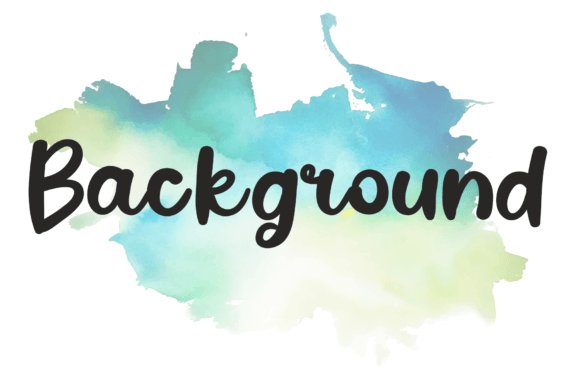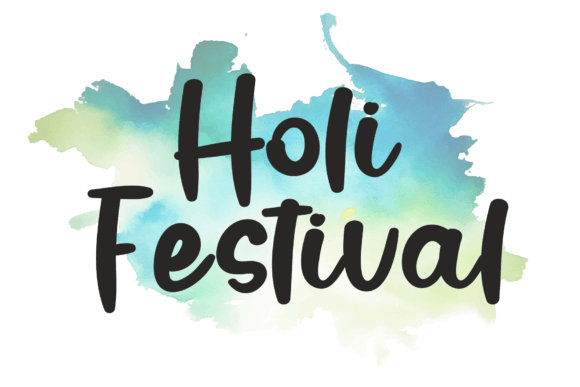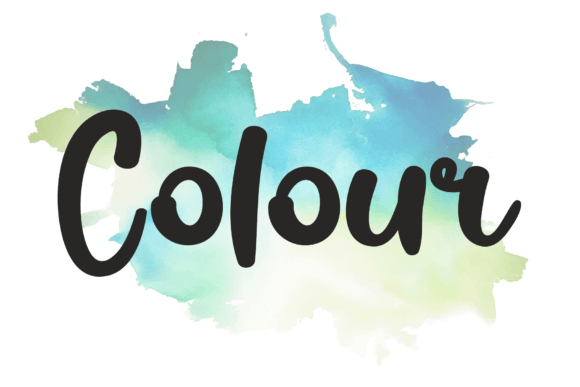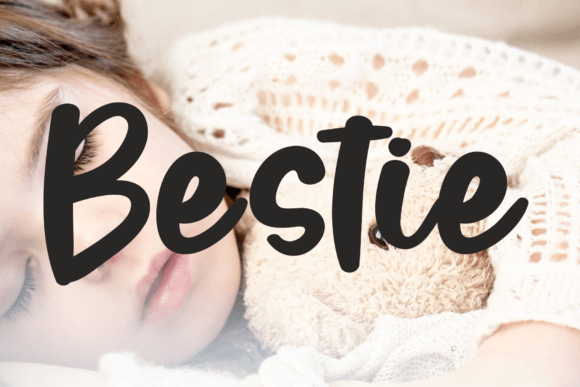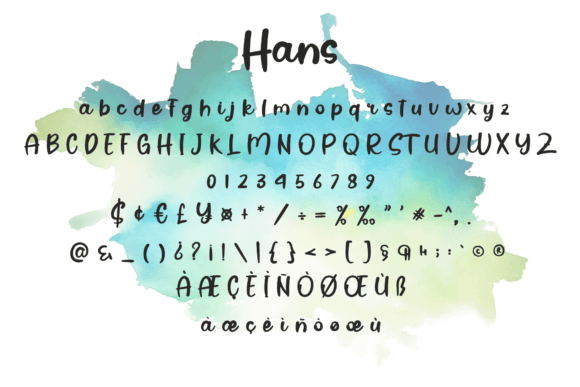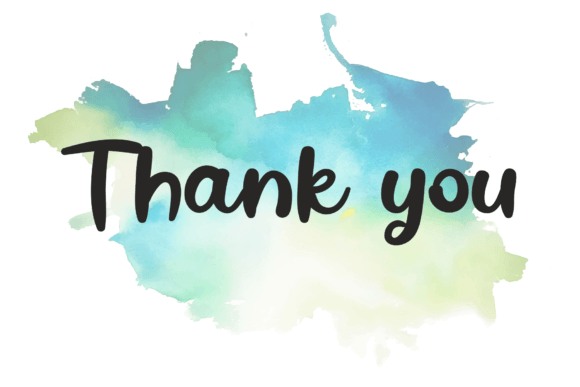
Hans Font
Introducing Hans Font
The Hans Font is a simple and neat handwritten typeface known for its versatility and organic, natural feel. This font offers a straightforward and adaptable choice that can enhance a variety of design projects. Its charm lies in its simplicity and ability to convey a sense of authenticity with its handwritten style.
Why Choose This Typeface?
• Simple and Authentic: Hans adds a natural aesthetic to your designs, making it suitable for greeting cards, headlines, posters, branding materials, and more.
• Versatile Usage: This font provides a visually appealing choice for various creative endeavors, allowing you to infuse your designs with a clean and organic look.
Applications of Hans
• Greeting Cards: Use this font to create elegant cards that capture attention.
• Branding: Enhance your brand identity with a style that conveys simplicity.
• Posters: Perfect for adding a straightforward script aesthetic to posters and other creative projects.
The Impact of Using Hans
This font elevates your designs by making them visually captivating and memorable. It becomes a reliable tool for designers seeking to create projects that stand out with authenticity. Its balanced form ensures your designs are both refined and captivating.
The Value It Brings
This typeface excels in combining contemporary design aesthetics with natural elegance. By choosing Hans, you ensure your designs are not only visually appealing but also engaging and unique.
This font is also ideal for various creative projects beyond traditional uses. It can enhance digital designs with its simple flair, making it suitable for websites, brochures, or mobile interfaces. The Hans Font adapts well to different screen sizes while maintaining its charm. As design trends evolve, this font remains relevant due to its timeless appeal, balancing style with functionality effectively.